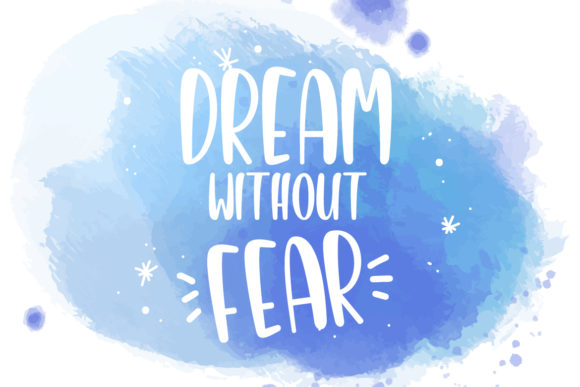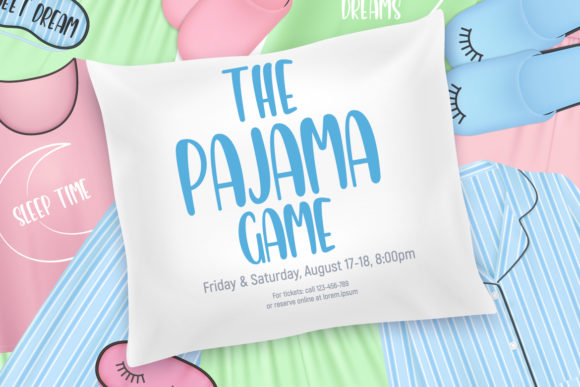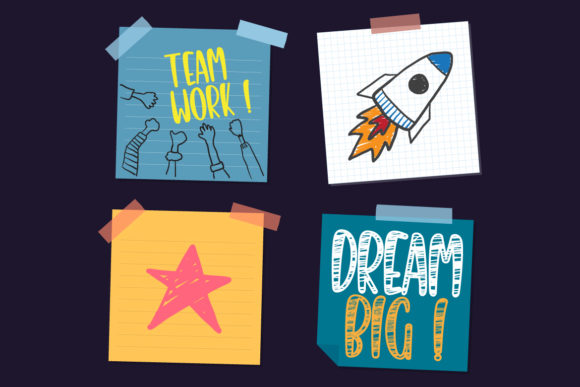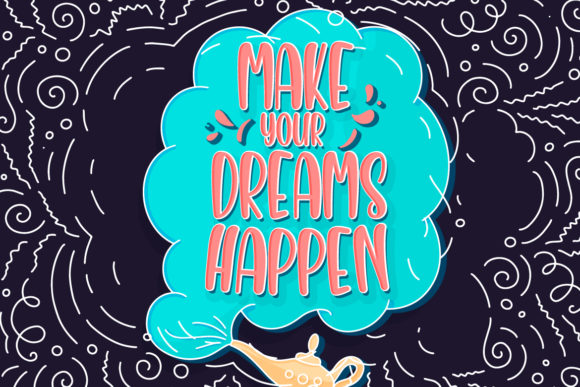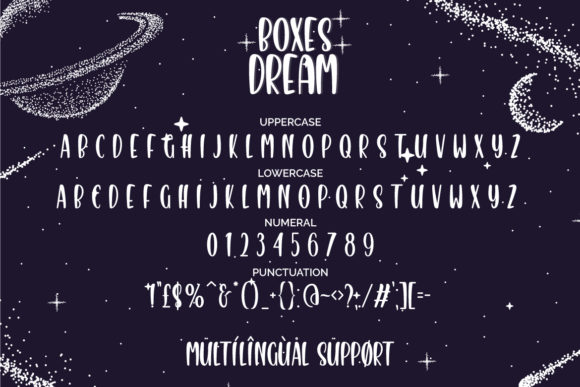
The Ultimate Guide to Boxes Dream Font: Adding a Joyful Touch to Your Designs
Have you ever been in the middle of a design project, and suddenly, you’re stuck on finding the perfect font? I recall a recent experience where a client requested a playful and quirky font for their branding project. After hours of searching, I stumbled upon Boxes Dream, and it instantly became my go-to font. In this article, I’ll share my love for Boxes Dream, its features, and how to make the most of it in your designs.
An Honest Review of Boxes Dream
Boxes Dream is an adorable quirky display font that has won my heart. Here’s what I love about it:
• ✨ Unique and playful design that adds a joyful touch to any project
• ✅ Masterfully designed to bring creative ideas to life
• 💫 Perfect for designs that require a touch of whimsy and fun
While Boxes Dream is an amazing font, it’s not without its quirks:
• 🤔 Limited use for body text due to its display font nature
• ⚠️ May not be suitable for formal or professional projects
The Story Behind Boxes Dream
Boxes Dream was designed by a team of creatives who wanted to create a font that would bring joy and playfulness to designs. Inspired by the world of childhood imagination, Boxes Dream is a reflection of the whimsy and wonder of youth. The design team poured their hearts into crafting a font that would be both unique and versatile, making it perfect for a wide range of creative projects.
Author Fallengraphic
What is Boxes Dream font best used for? Boxes Dream is best used for designs that require a playful and quirky touch, such as branding, packaging, and advertising.
Is Boxes Dream suitable for body text? No, Boxes Dream is a display font and is not suitable for body text due to its size and stylistic features.
Does Boxes Dream support OpenType features? Yes, Boxes Dream supports OpenType features, including glyphs and stylistic alternates.
Boxes Dream is a unique and playful font that can add a joyful touch to your designs. With its quirky design and versatile features, it’s perfect for creative projects that require a touch of whimsy and fun. By following the steps outlined in this article, you can make the most of Boxes Dream and bring your creative ideas to life.